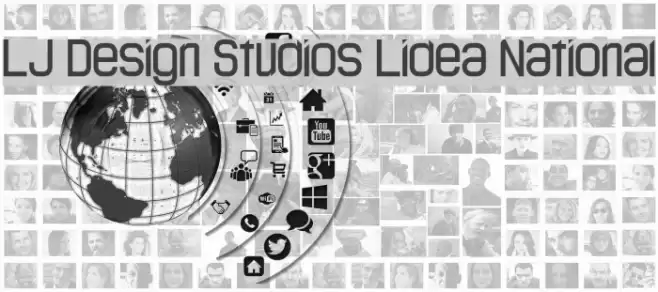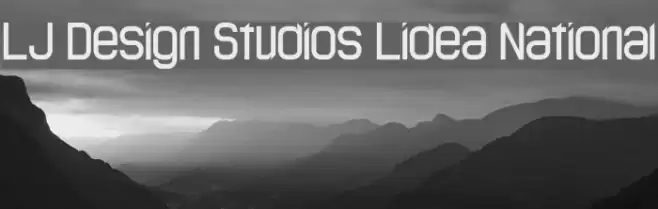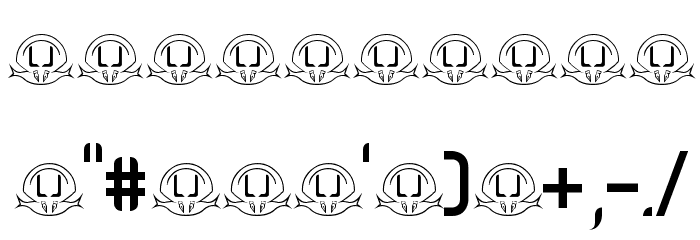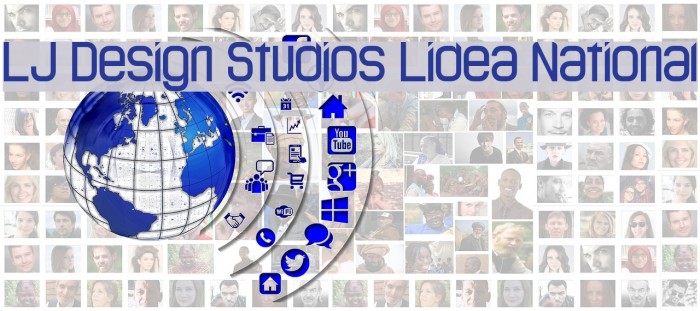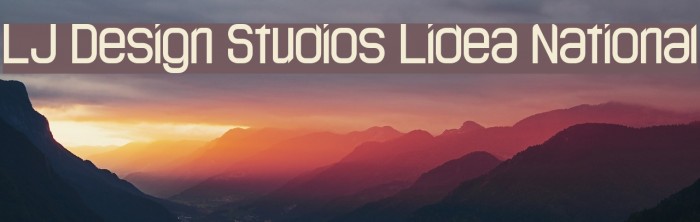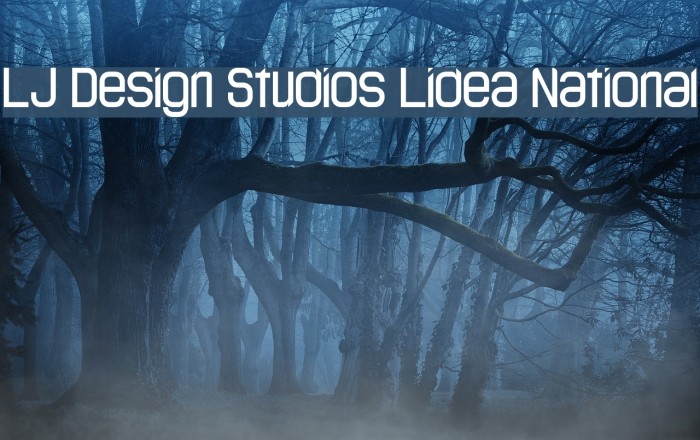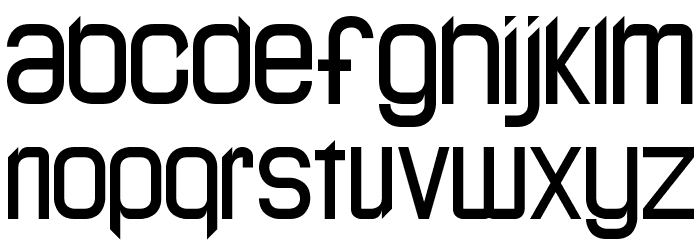
LJ Design Studios Lidea National Font
LJ Design Studios Lidea National Description
This font features a modern, geometric design with clean lines and a structured appearance. The uppercase letters are bold and angular, with a consistent height and width that create a uniform look. The lowercase letters maintain the geometric style, offering a slightly softer appearance with rounded edges. The numerals are similarly structured, providing a cohesive aesthetic throughout. Special characters are included, maintaining the same design principles. This font is ideal for projects that require a contemporary and professional look, such as branding, advertising, and digital media.
A modern, geometric font with clean lines and a structured appearance from Uncategorized fonts.
- Proposed Projects: Ideal for branding, advertising, digital media, and modern design projects.
- Use Case: Headlines, Logos, Branding